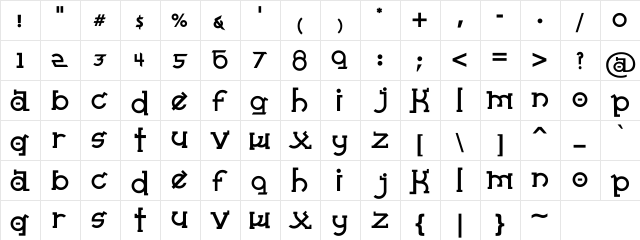
Almost Sanskrit taj Bold
Design Context for Almost Sanskrit taj Typeface
Almost Sanskrit taj is a composed and adaptable typeface that performs quietly and consistently across a wide range of design contexts. Its bold stroke weight gives it real presence on the page.